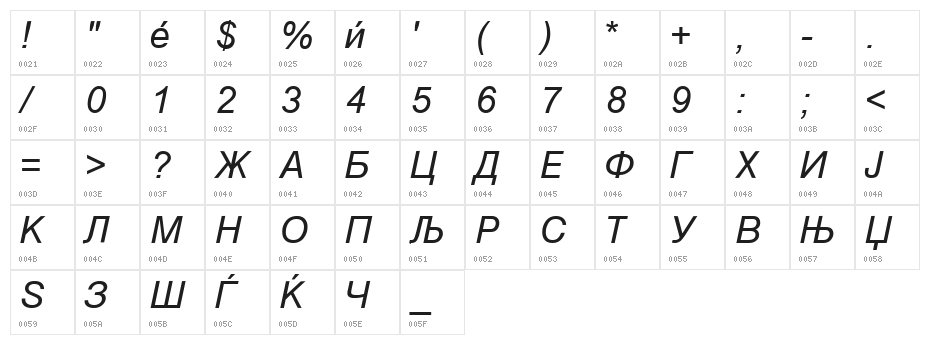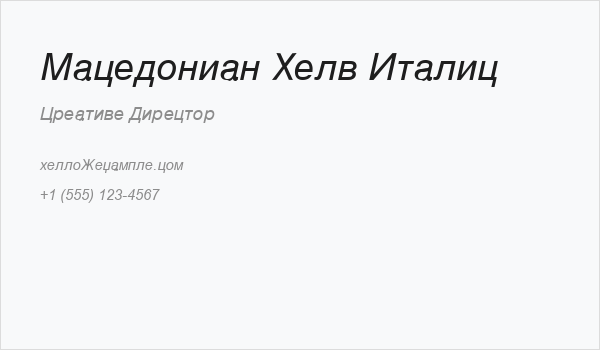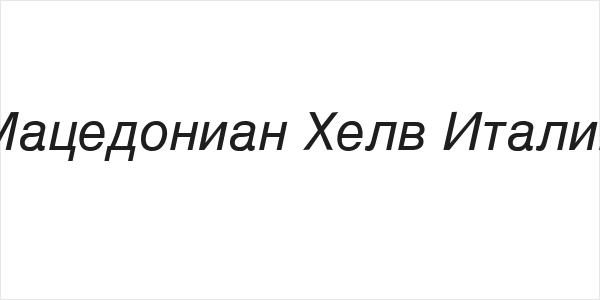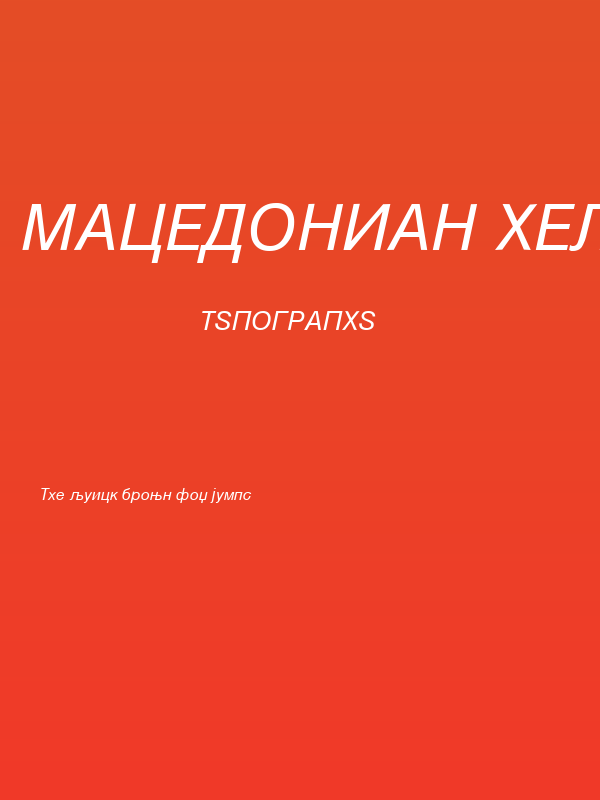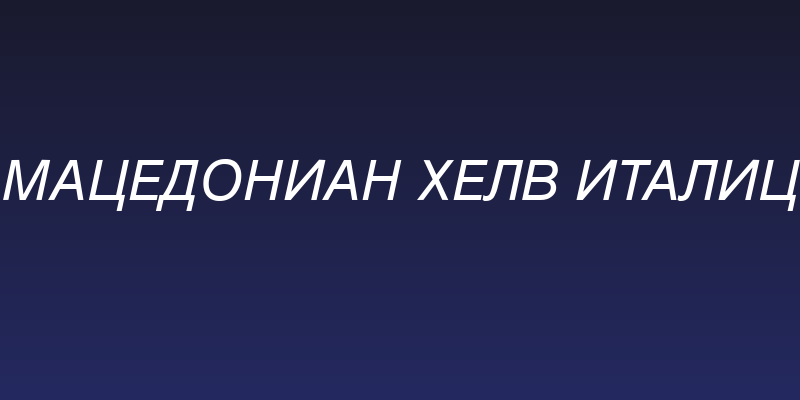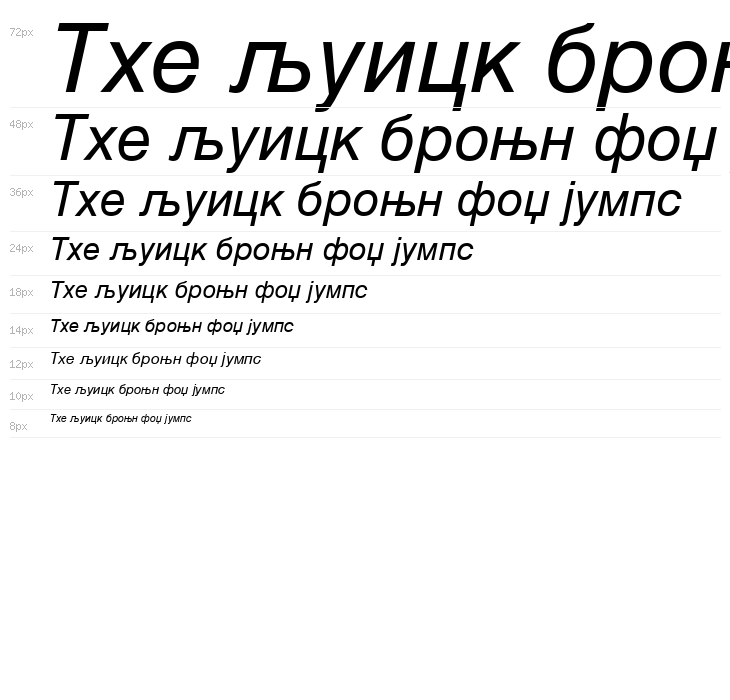
Macedonian Helv Italic Font
Macedonian Helv Italic Description
This font features a clean and modern design with a slight italic slant, giving it a dynamic and forward-leaning appearance. The characters are well-defined with smooth curves and consistent stroke widths, making it highly legible. The uppercase and lowercase letters maintain a uniform style, while the numerals are clear and easy to read. Special characters are included, enhancing its versatility for various applications. The overall design is sleek and professional, suitable for both digital and print media.
| Proposed Projects | Ideal for corporate branding, website headers, presentations, and editorial design. |